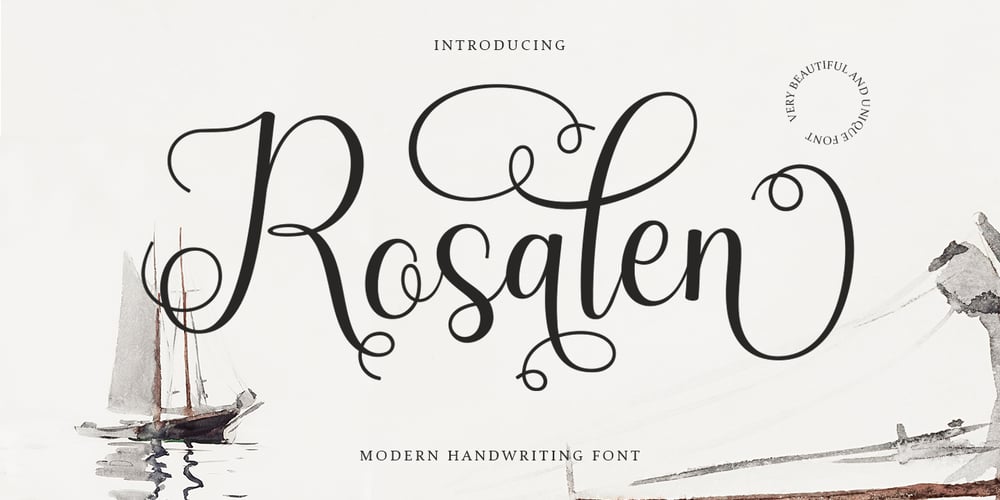
Rosalen Font Family was designed by Haikal Juanda and published by Pista Mova. Rosalen contains 1 styles and family package options. Rosalen Script is an amazing typeface handmade script font that we created in freestyle for those of you doing work and crafts.It’s perfect for all kinds of work you do for multiple purposes like logos, wedding invitations, titles, t-shirts, letterheads, signage, labels, news, posters, badges, etc.Files include:OpenType features with alternate styles, binders, swipes, and multiple language support.To enable the OpenType Stylistic alternative, you need a program that supports OpenType features such as Adobe Illustrator CS, Adobe Indesign & CorelDraw X6-X7, Microsoft Word 2010 or later.How to access all alternative characters, using the Windows Character Map with Photoshop:https://www.youtube.com/watch?v=Go9vacoYmBwHow to access all alternative characters using Adobe Illustrator:http://youtu.be/iptSFA7feQ0Thank you!